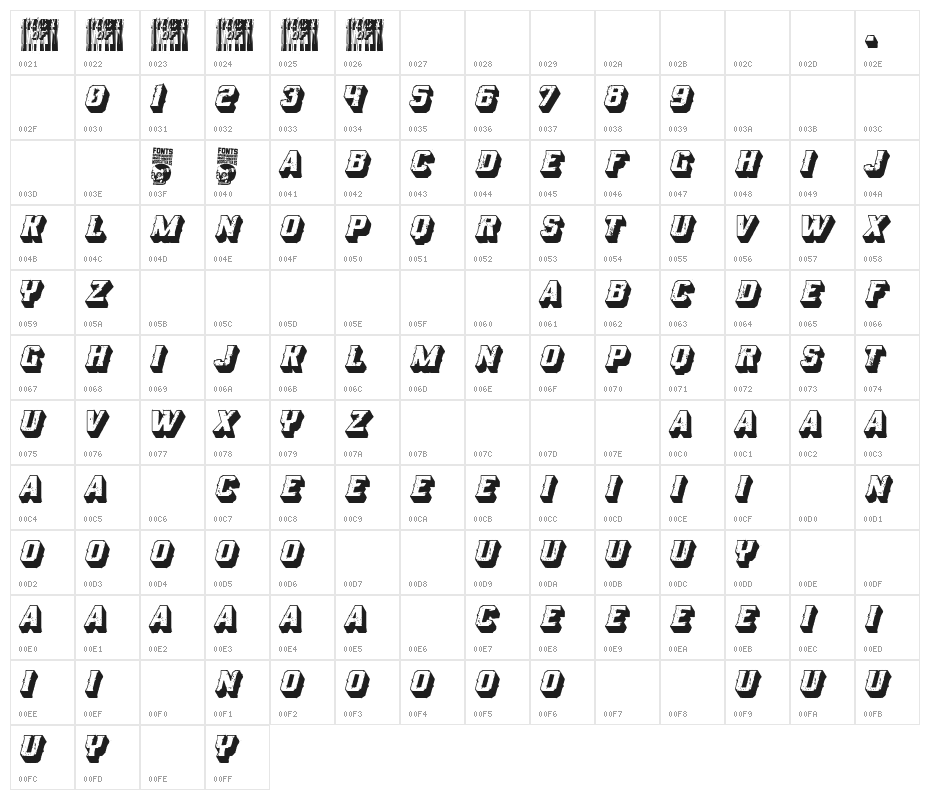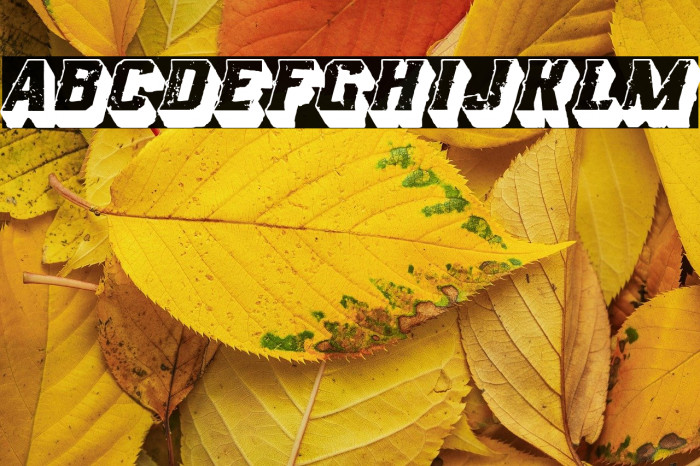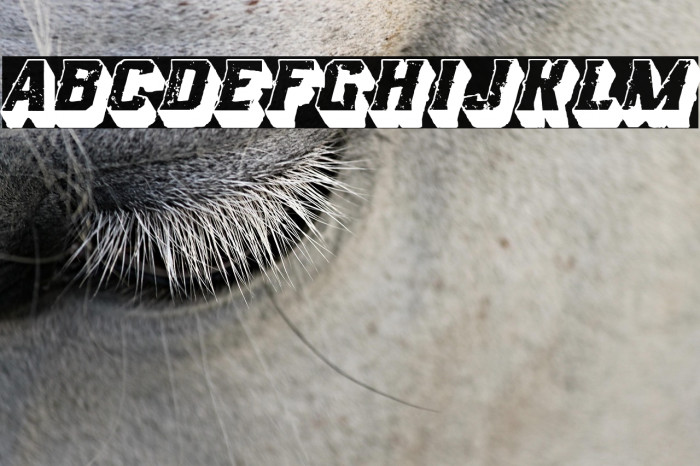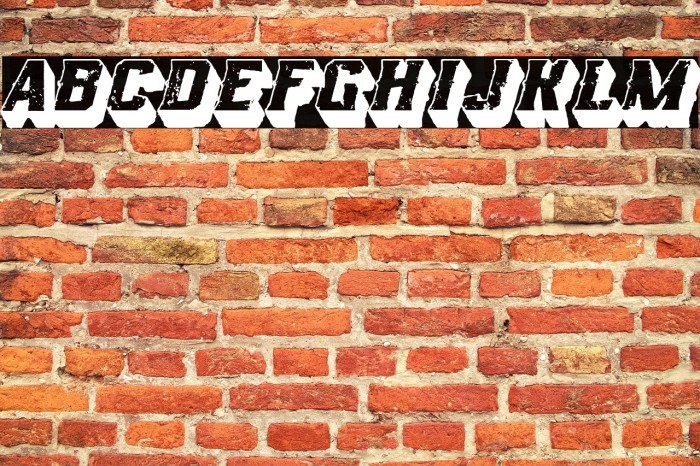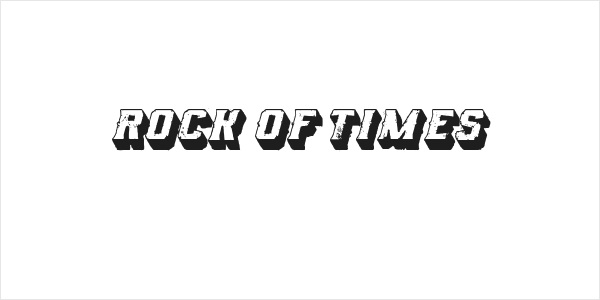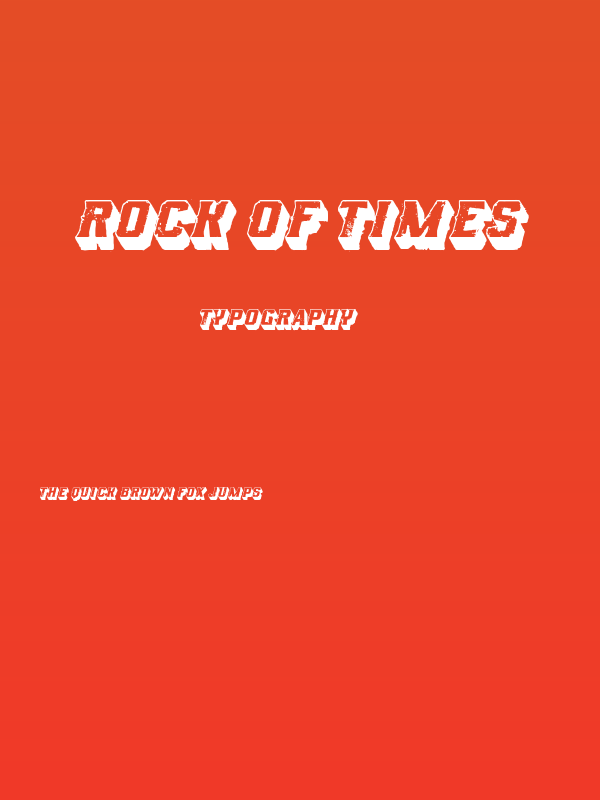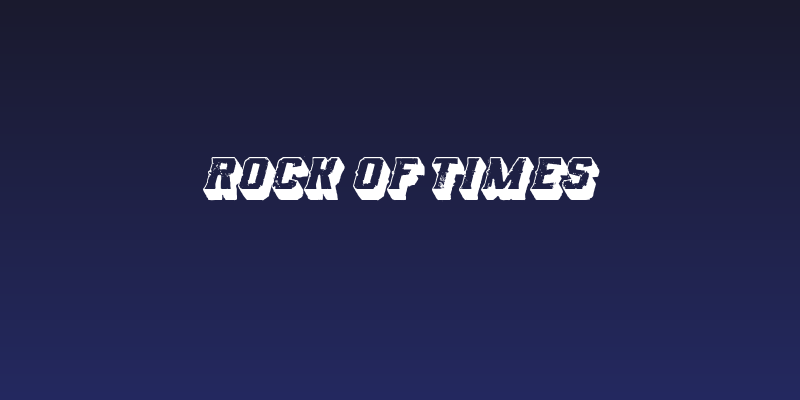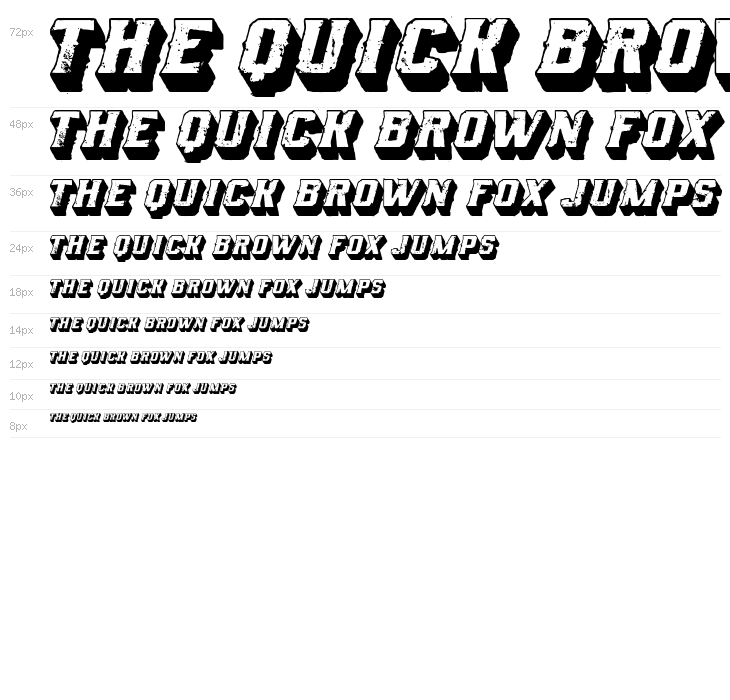
Rock of Times Font
Rock of Times Description
This font features a bold, rugged style with a distressed texture that gives it a rock-like appearance. The characters are uppercase with a three-dimensional effect, creating a sense of depth and solidity. The bold strokes and rough edges contribute to a dynamic and energetic feel, making it ideal for projects that require a strong visual impact. The numbers and special characters maintain the same bold and textured style, ensuring consistency across all elements. This font is particularly suited for designs that aim to convey strength, resilience, and a touch of rebellion.
| Proposed Projects | Ideal for music album covers, event posters, branding for extreme sports, and any project needing a bold, edgy look. |